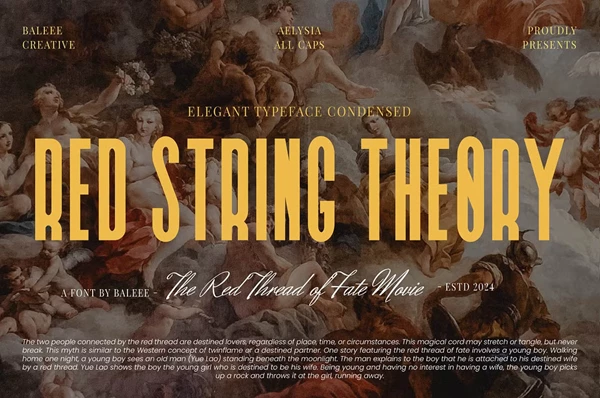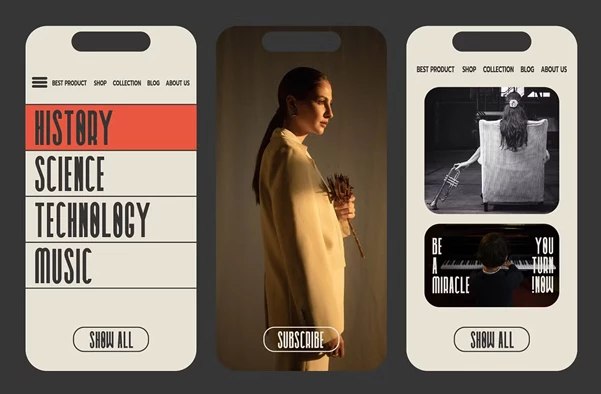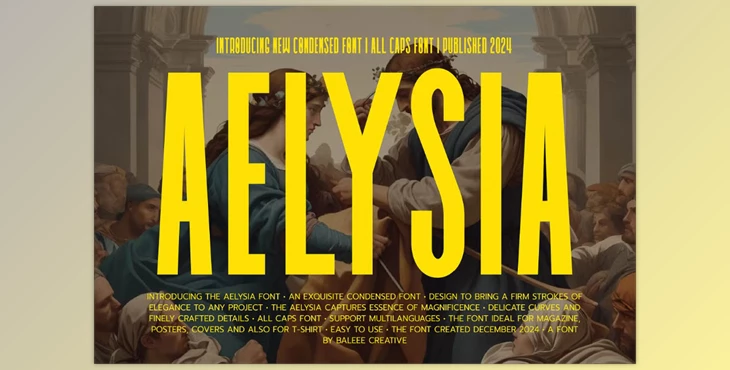
Aelysia Font - Condensed Font:
Aelysia Font goes hand in hand with contemporary design owing to its elegance and authenticity. This font features a chic retro touch that suits many creative projects. Its all-caps format, along with support for multiple languages, makes it ideal for modern designers looking to incorporate some vintage flair into their work.
The Aelysia Font is perfect for t-shirt designs, logos, and branding collateral like wedding invitation digital templates, business cards, and greeting cards. It can also be employed in posters, magazine covers, social media graphics, planner prints, and websites. With this wide array of uses, it is guaranteed to add sophistication to any project.
Some great features of Aelysia Font - Condensed Font:
- Stylistic support for multi-language use enables the font to be used globally.
- Bold and cohesive look owing to an all-caps structure
- The inclusion of numerals and punctuation caters to a wide range of usage
- Characters with diacritics for different languages
"Aelysia Font - Condensed Font" Samples: